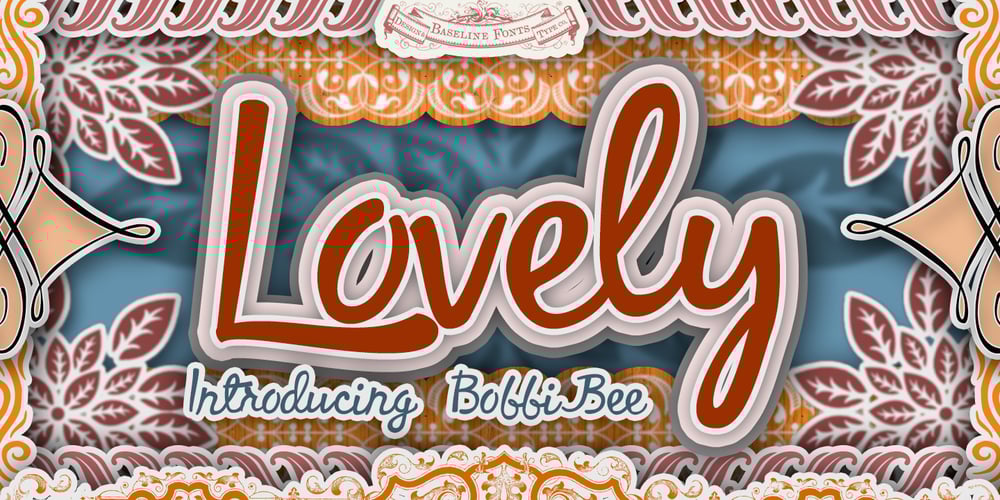
Bobbi Bee Font Family was designed by Nathan Williams and published by Baseline Fonts. Bobbi Bee contains 1 styles and family package options. Bobbi Bee won’t stop popping her bubblegum, even though that’s not very ladylike. Bobbi Bee is very proud of all of her 361 numbers, letters and alternates – all of which are chock full of summer sunshine and life. The font comes in a single weight (because she’s perfect just the way she is.) She’s cut out for a very special book title, logotype, or love letter. Keep Bobbi’s hand firmly in yours in shopping malls, as she tends to get distracted and wander, and though it’s hard, always remember to tell her how smart she is, as well as how beautiful.